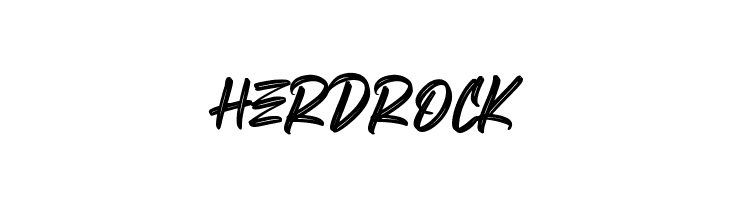
A playful and whimsical script font with a handwritten style.
A lively, cursive font with a natural, handwritten feel and elegant loops.
A lively, cursive script font with fluid, connected characters.
A casual, handwritten font with a lively and flowing style.
A playful and elegant script font with fluid, connected letterforms and medium contrast.
A playful, handwritten font with smooth, rounded edges and consistent stroke width.
A bold, playful handwritten font with thick strokes and rounded edges.
A playful, handwritten font with fluid strokes and a casual vibe.
A bold, energetic script font with a hand-drawn, dynamic style.
A lively handwritten font with bold, expressive strokes and a modern, playful style.